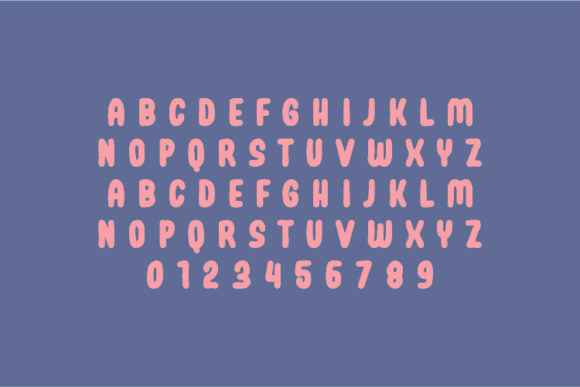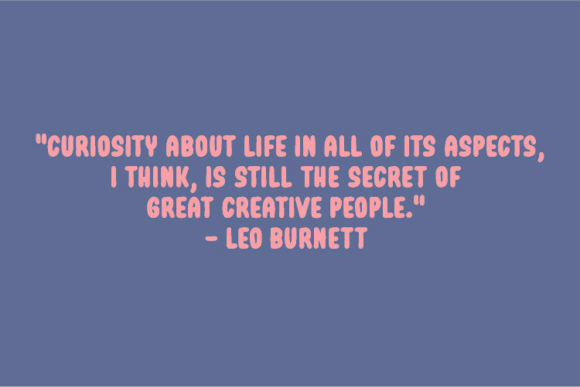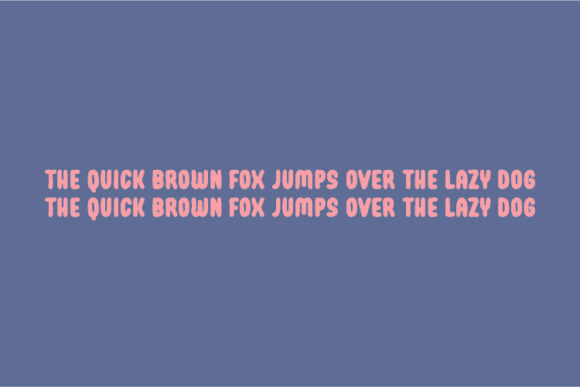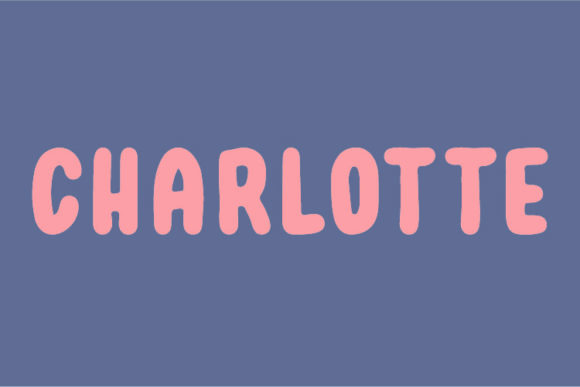
Discover the Charm of Charlotte Font: A Clean and Friendly Handwritten Font
Are you tired of using the same old fonts for your designs and crafts? Look no further than Charlotte Font, a beautiful and versatile handwritten font that’s perfect for a wide range of projects. Whether you’re a designer, crafter, or simply someone who loves to create, Charlotte Font is sure to become your new go-to font.
What is Charlotte Font?
Charlotte Font is a clean and friendly handwritten font that’s designed to be easy to read and visually appealing. Its smooth, flowing lines and rounded edges give it a warm and inviting feel that’s perfect for a variety of projects, from digital designs and presentations to crafts and greeting cards.
What Makes Charlotte Font So Special?
So, what sets Charlotte Font apart from other fonts? Here are just a few reasons why it’s become a favorite among designers and crafters:
- Clean and Easy to Read: Unlike some handwritten fonts that can be messy or difficult to read, Charlotte Font is clean and easy to read, making it perfect for digital designs, presentations, and other projects where legibility is important.
- Friendly and Inviting: The rounded edges and smooth lines of Charlotte Font give it a friendly and inviting feel that’s perfect for crafts, greeting cards, and other projects where you want to create a personal connection with your audience.
- Versatile: Whether you’re creating digital designs, presentations, crafts, or greeting cards, Charlotte Font is versatile enough to be used for a wide range of projects.
- Handwritten with Love: Charlotte Font is a handwritten font that’s been carefully crafted with love and attention to detail, giving it a unique and personal touch that’s hard to find with other fonts.
Uses for Charlotte Font
So, what can you use Charlotte Font for? The possibilities are endless! Here are just a few ideas to get you started:
- Digital Designs: Use Charlotte Font to add a personal touch to your digital designs, from social media graphics to blog posts and website headers.
- Presentations: Add a touch of elegance and sophistication to your presentations with Charlotte Font, perfect for business or personal projects.
- Crafts: Use Charlotte Font to create beautiful and unique crafts, from handmade cards to scrapbooking and other paper crafts.
- Greeting Cards: Create personalized and heartfelt greeting cards with Charlotte Font, perfect for birthdays, holidays, and other special occasions.
Tips for Using Charlotte Font
Here are a few tips for getting the most out of Charlotte Font:
- Experiment with Different Sizes: Charlotte Font looks great in a variety of sizes, from small and delicate to large and bold. Experiment with different sizes to find the one that works best for your project.
- Pair with Other Fonts: Charlotte Font pairs well with a variety of other fonts, from clean and modern sans-serif fonts to elegant and sophisticated script fonts. Experiment with different pairings to find the one that works best for your project.
- Use for Headings and Body Text: Charlotte Font is versatile enough to be used for both headings and body text. Use it to create visually appealing and easy-to-read text for your projects.
Charlotte Font is a beautiful and versatile handwritten font that’s perfect for designers, crafters, and anyone who loves to create. Its clean and friendly design makes it easy to read and visually appealing, while its versatility makes it suitable for a wide range of projects. Whether you’re creating digital designs, presentations, crafts, or greeting cards, Charlotte Font is sure to become your new go-to font. So why wait? Give Charlotte Font a try today and see the difference it can make in your designs!